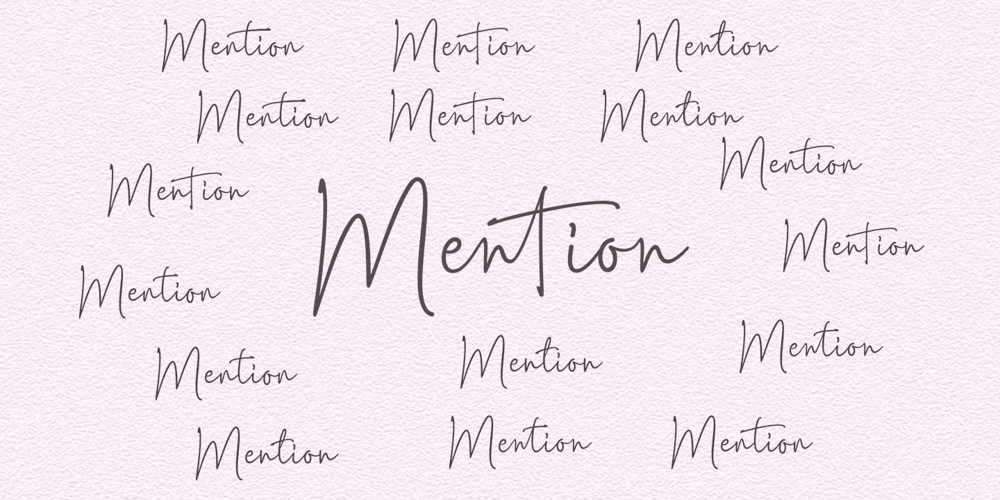
Mention Font Family was designed by Fadhil Aqsa and published by Meutuwah. Mention contains 1 styles and family package options. Hello Font Lovers… Mention is another lovely modern signature font, which is combining the style of classic calligraphy with an modern style. combines from copperplate to contemporary typeface with a dancing baseline, modern and elegant touch. Including alternates, and ligatures. Languages supported: Breton, Catalan, Czech, Danish, Estonian,French, German, Hungarian, Icelandic, Italian, Romanian, Scottish Gaelic, Slovak, Latvian, Lithuanian, Norwegian, English, Finnish, Polish, Portuguese, Slovenian, Spanish, Swedish, Turkish, Welsh. Basically, all European languages that are based on latin alphabet. Can be used for various purposes such as headings, logos, wedding invitation, t-shirt, letterhead, labels, news, posters, badges etc. To enable the OpenType Stylistic alternates, you need a program that supports OpenType features such as Adobe Illustrator CS/CC, Adobe Indesign CS/CC, Adobe Photoshop CS/CC, CorelDraw X6-X7 & Microsoft Office. Mention, a font having characters move up and down like a dancer. This freestyle has a very unique style of signature and is very suitable for modern design. THANK YOU SO MUCH